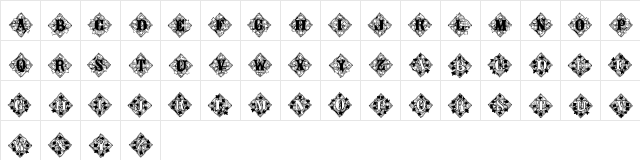
JFIvyLaceAlt Regular Free Font
JFIvyLaceAlt Regular
Design Context for JFIvyLaceAlt
JFIvyLaceAlt is a composed and adaptable typeface that performs quietly and consistently across a wide range of design contexts.